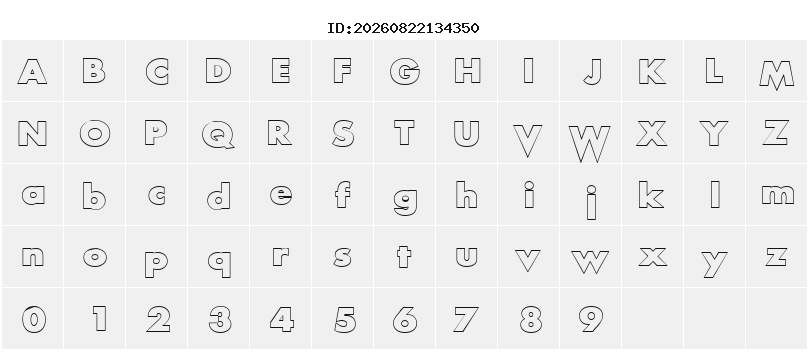
• Font Name: Scream alternative outlined
• Full Font Name: Scream alternative outlined
• Copyright: Based on the Scream films logo. Samuel Park -99
About Scream alternative outlined.ttf
Scream alternative outlined.ttf is a modern, elegant sans-serif font designed for ultimate readability and visual harmony. Perfect for branding, headlines, web design, and print materials.